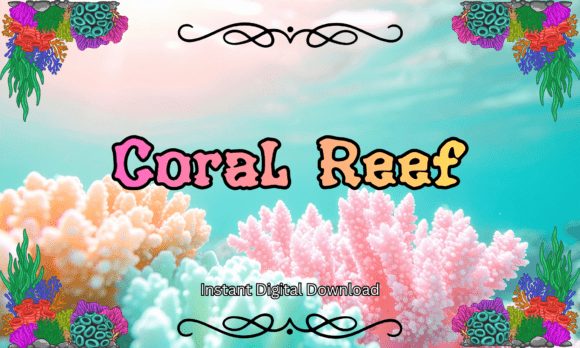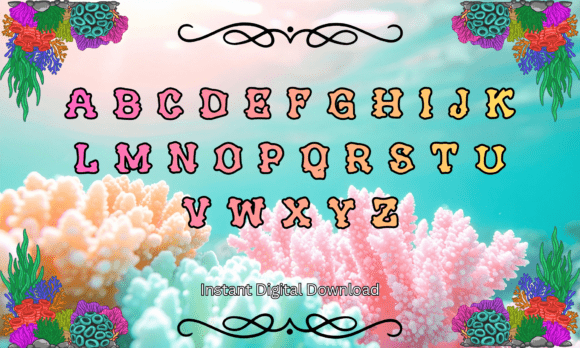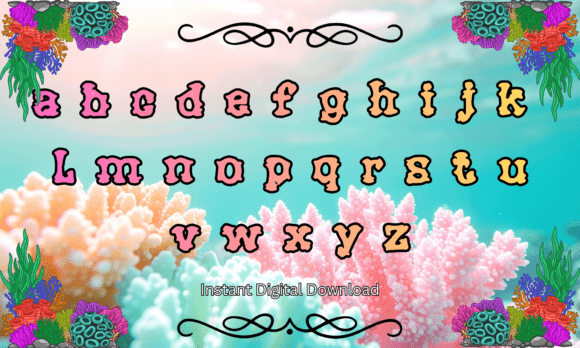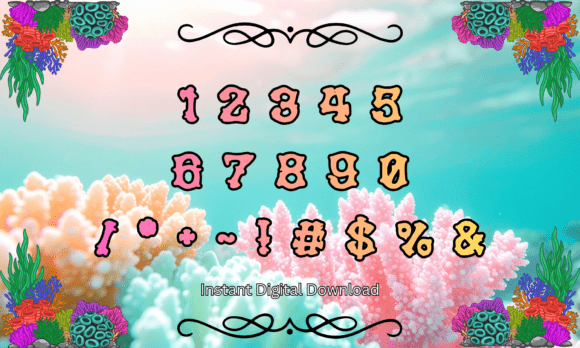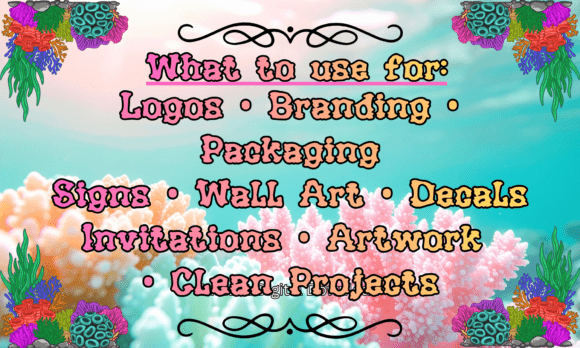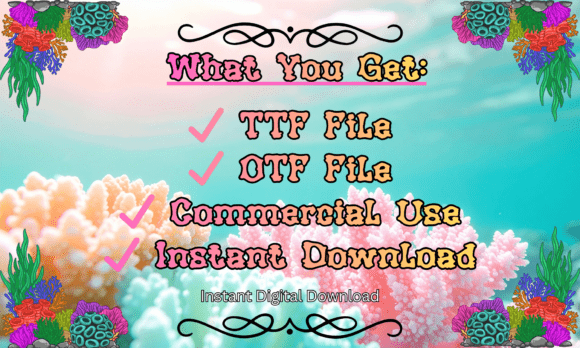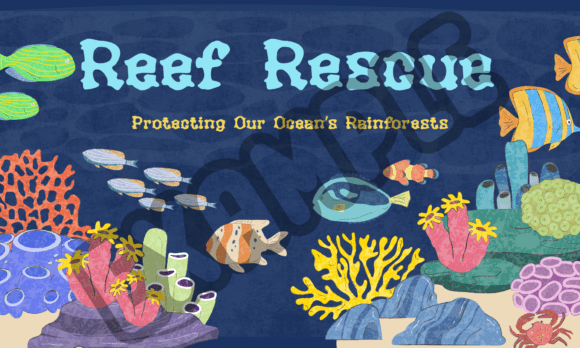
Bring the Beach to Your Designs with Coral Reef Font
Do you remember the feeling of sand between your toes and the sound of the waves gently lapping at the shore? For many of us, summer is a time to unwind and tap into our creative side. As a designer, I’m sure you’ve found yourself daydreaming of ways to capture the carefree spirit of the beach in your projects. That’s exactly what the Coral Reef Font is designed to do – bring the vibrant colors and playful energy of the ocean to your designs.
This digital font is perfect for anyone looking to add a tropical twist to their work. With its bold, coral-inspired edges and organic texture, the Coral Reef Font is sure to make your designs stand out. Whether you’re creating stickers, party invitations, or branding materials for a small shop, this font is a valuable addition to any designer’s toolkit.
Coral Reef Font Key Features
- Font Family: Coral Reef Font is a unique, hand-drawn font designed to evoke the beauty of coral reefs. It features a variety of characters, including uppercase and lowercase letters, numbers, and punctuation.
- Unique Characteristics: The font features a distinctive, hand-drawn style with intricate details and textures, giving it a unique and eye-catching appearance.
Coral Reef Font Review
I recently had the chance to work with the Coral Reef font, and I must say it’s a unique addition to any design project. ✨ The bold and playful style makes it perfect for creating eye-catching headings and titles. It’s great for use in advertisements, social media, or any project where you want to make a statement.
- ✨ Unique style: The Coral Reef font has a distinctive look that will set your design apart from the crowd.
- ✨ Great for headings: The bold and playful style makes it perfect for creating eye-catching headings and titles.
- ✨ Wide character set: The font includes a wide range of characters, including letters, numbers, and symbols.
However, there are a few limitations to consider. ⚠️ The font may not be suitable for use in body text, as it can be difficult to read in large quantities. Additionally, the font may not be fully compatible with older systems or browsers.
- ⚠️ Not suitable for body text: The font’s bold style can make it difficult to read in large quantities.
- ⚠️ Compatibility issues: The font may not be fully compatible with older systems or browsers.
Overall, I think the Coral Reef font is a great addition to any design project. While it may have some limitations, its unique style and wide character set make it a versatile and effective choice.
Tips for Getting the Most Out of the Coral Reef Font
Use the Coral Reef Font to add a touch of tropical flair to your designs. Try combining it with bright colors and beach-inspired graphics for a cohesive look.
The Coral Reef Font is perfect for:
- Beach-themed designs and marketing materials.
- Tropical wedding invitations and stationery.
- Summer-themed social media graphics and ads.